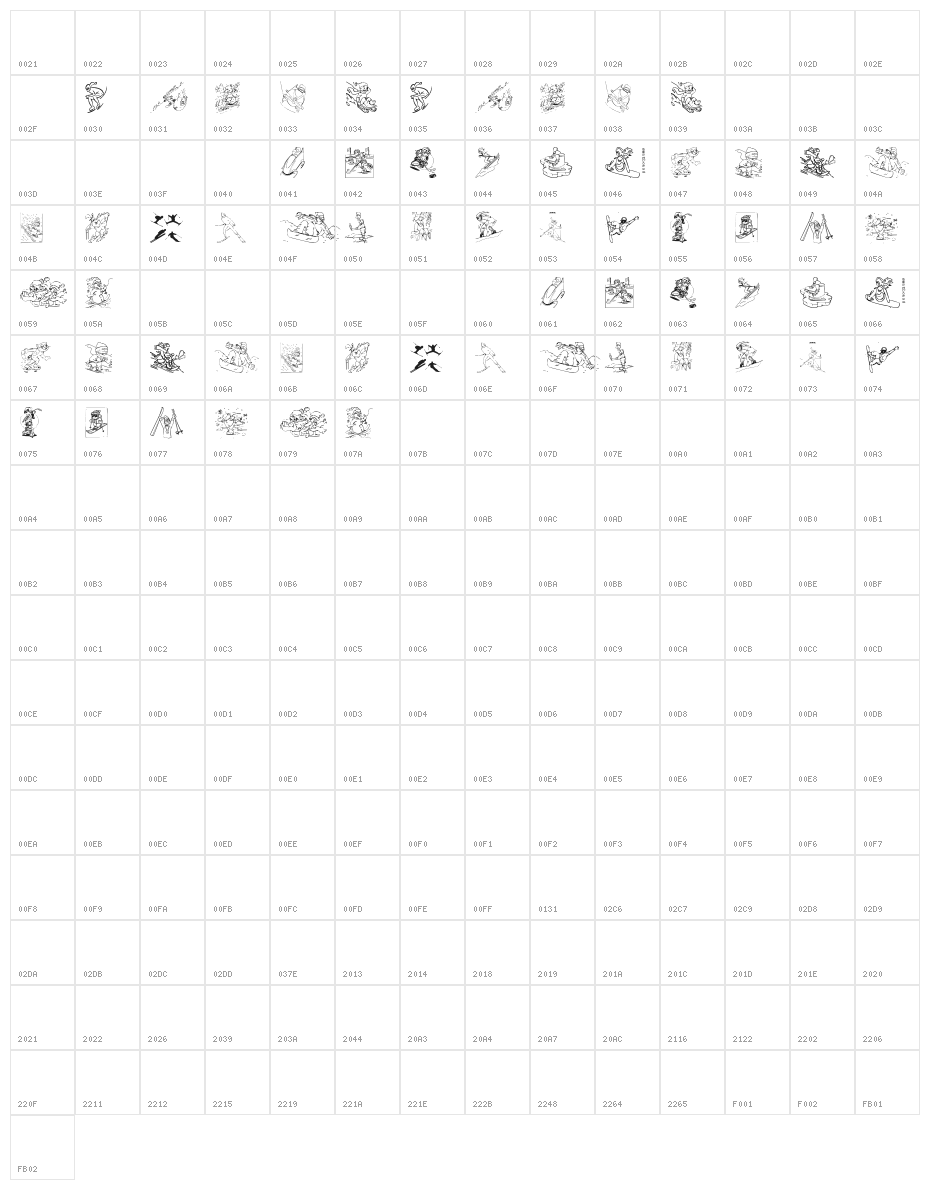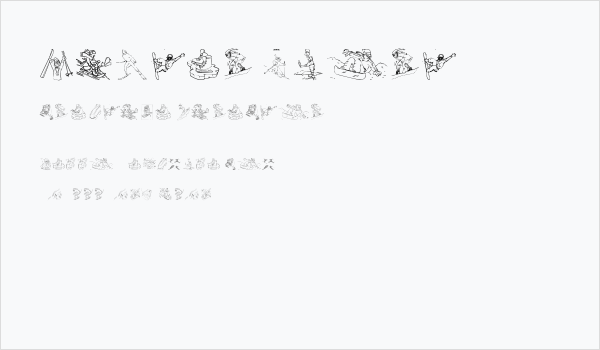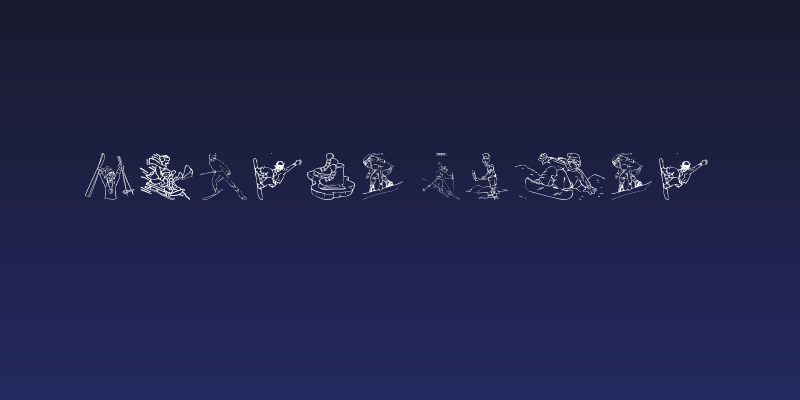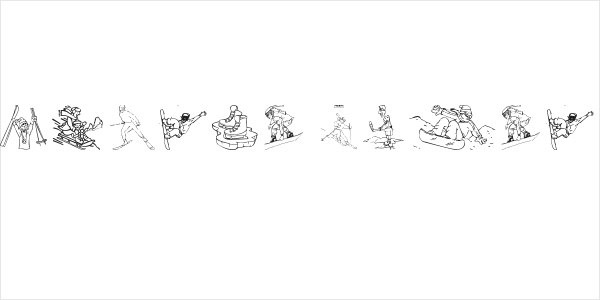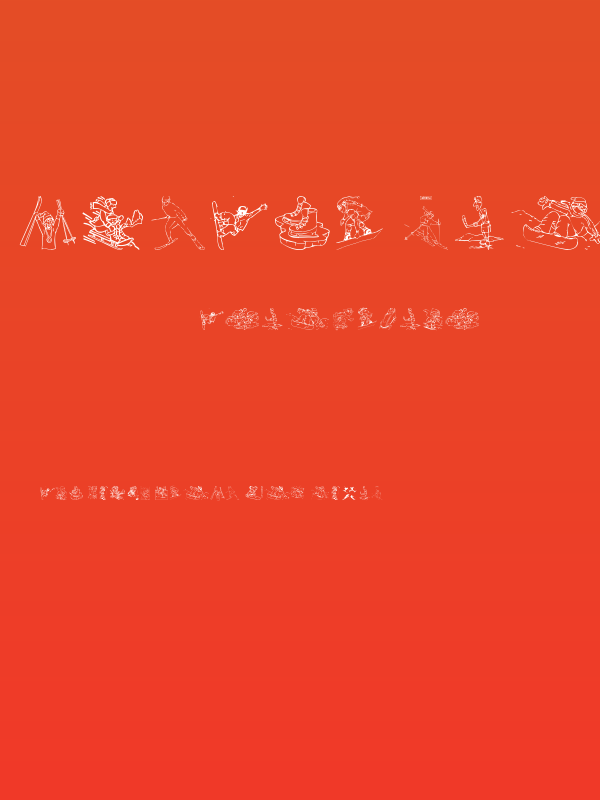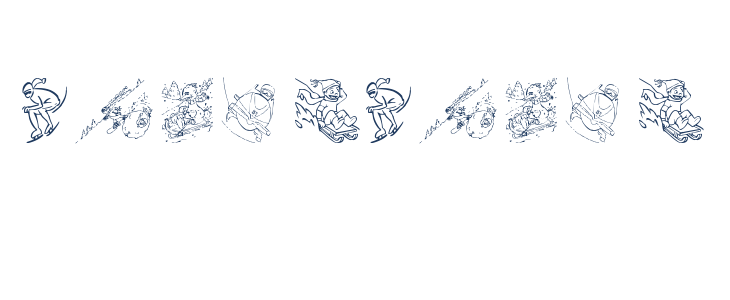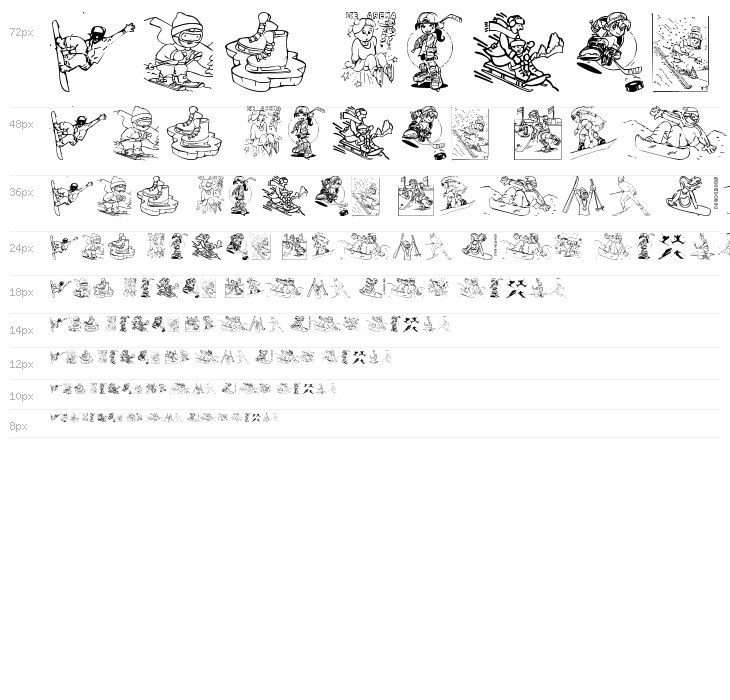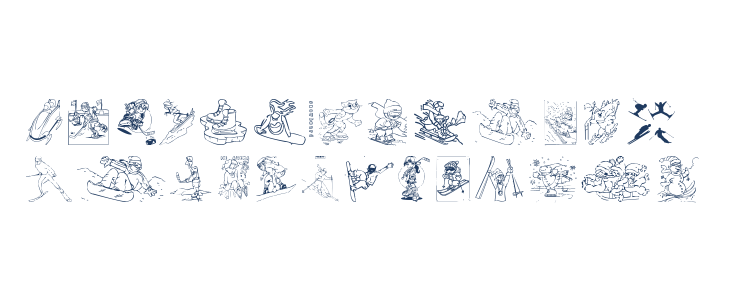
Winter Sport Font
Winter Sport Description
WINTER-SPORT UPPERCASE
WINTER-SPORT LOWERCASE
WINTER-SPORT OTHER CHARS
| Overall Style | Playful, Whimsical, Thematic |
| Use Case | Logos, Headlines, Posters, Themed graphics |
| Proposed Projects | Children’s books, winter event posters, holiday cards, playful branding, themed party invitations. |